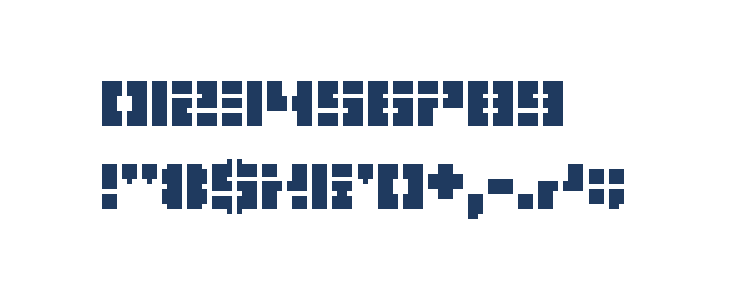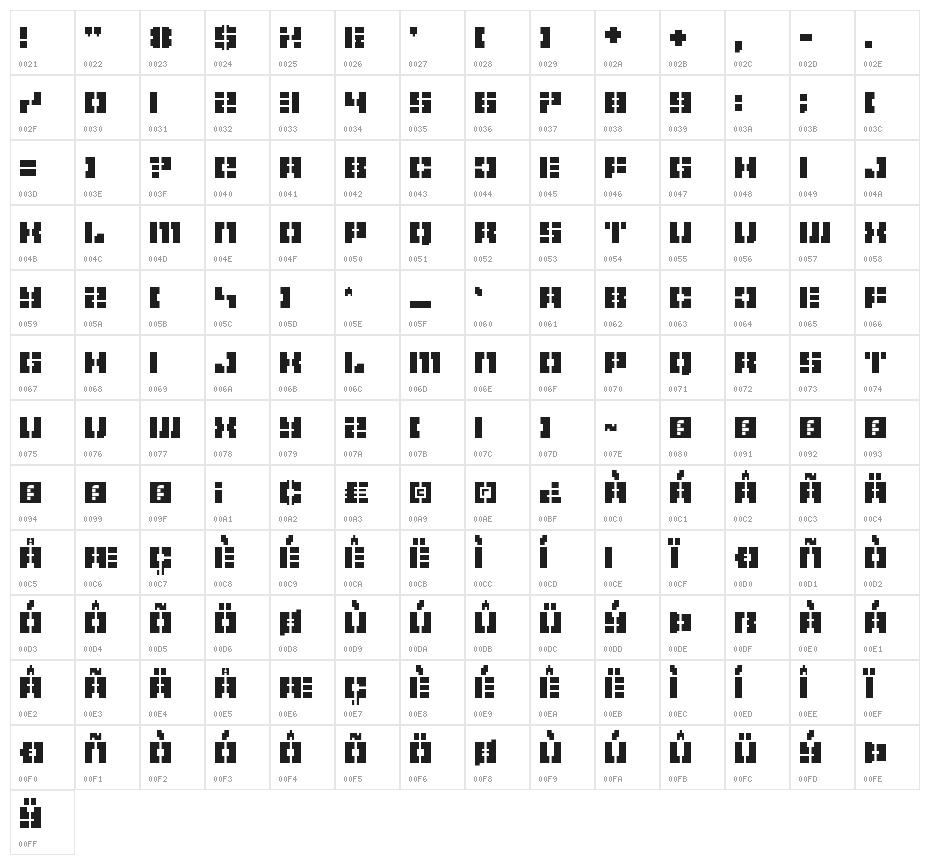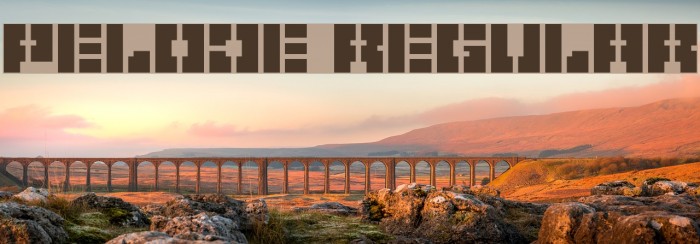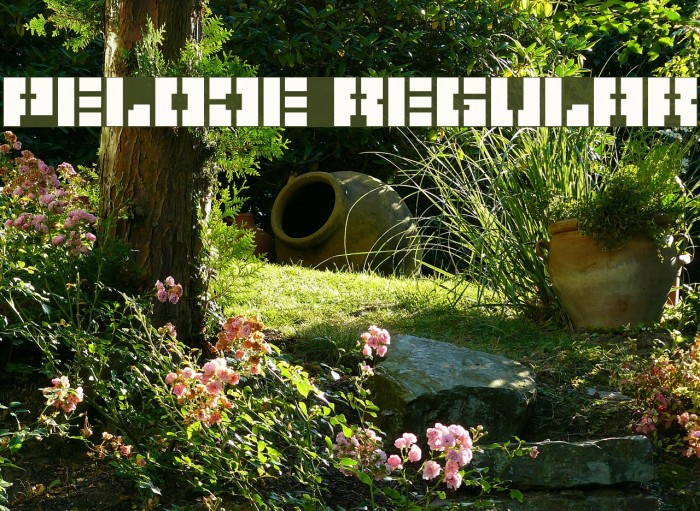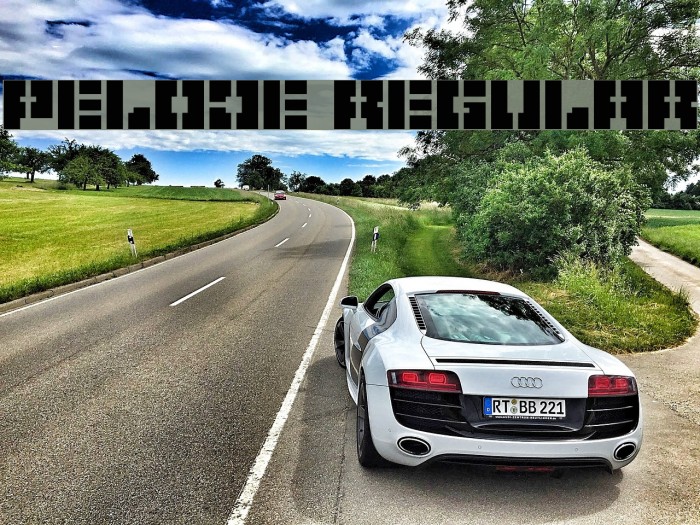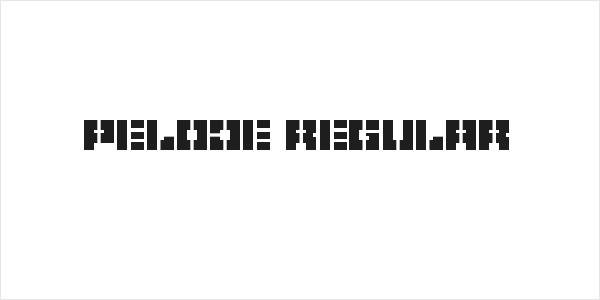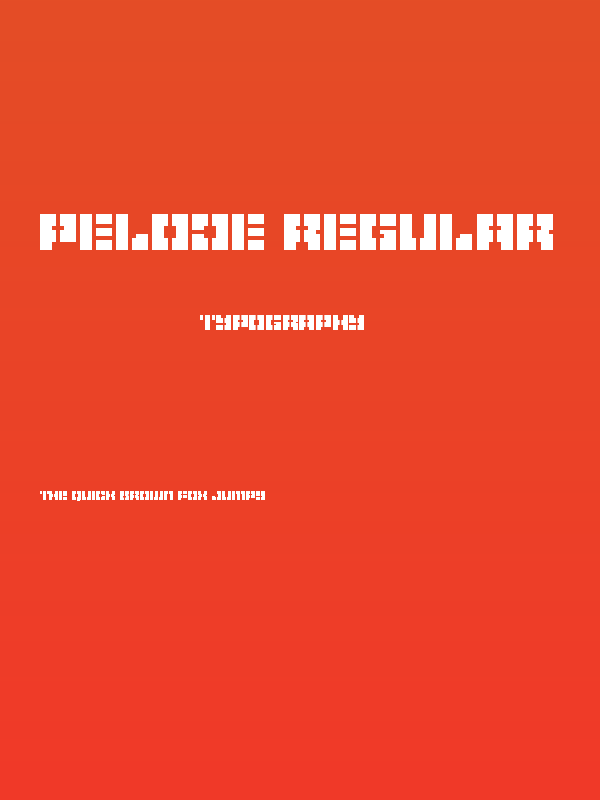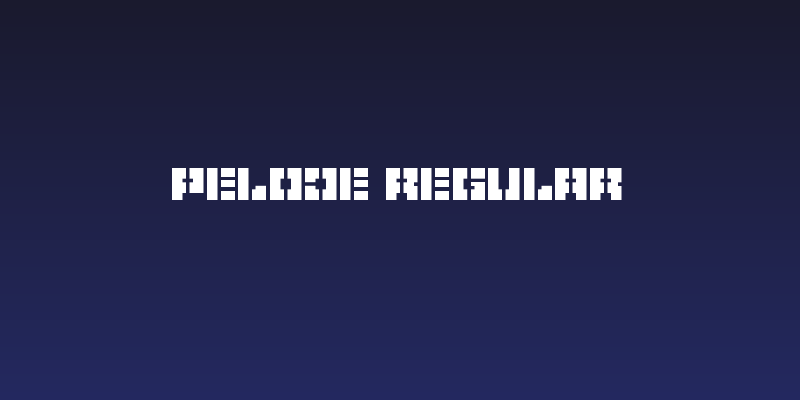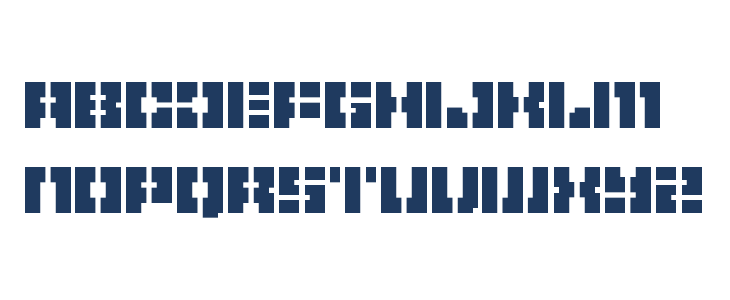
Pelode Regular Font
Pelode Regular Description
This font features a bold, geometric design with a blocky, pixelated appearance. Each character is constructed from a series of square and rectangular shapes, creating a digital, futuristic aesthetic. The uniformity in the structure of the letters gives it a cohesive and modern look, while the sharp angles and straight lines contribute to its distinct, tech-inspired style. The font maintains consistent weight across all characters, ensuring a balanced and harmonious visual impact. Its unique style makes it stand out, ideal for projects that require a strong, contemporary feel.
| Use Case | Logos, Headlines, Posters |
| Proposed Projects | Ideal for video game design, tech branding, digital art projects, and modern posters. |